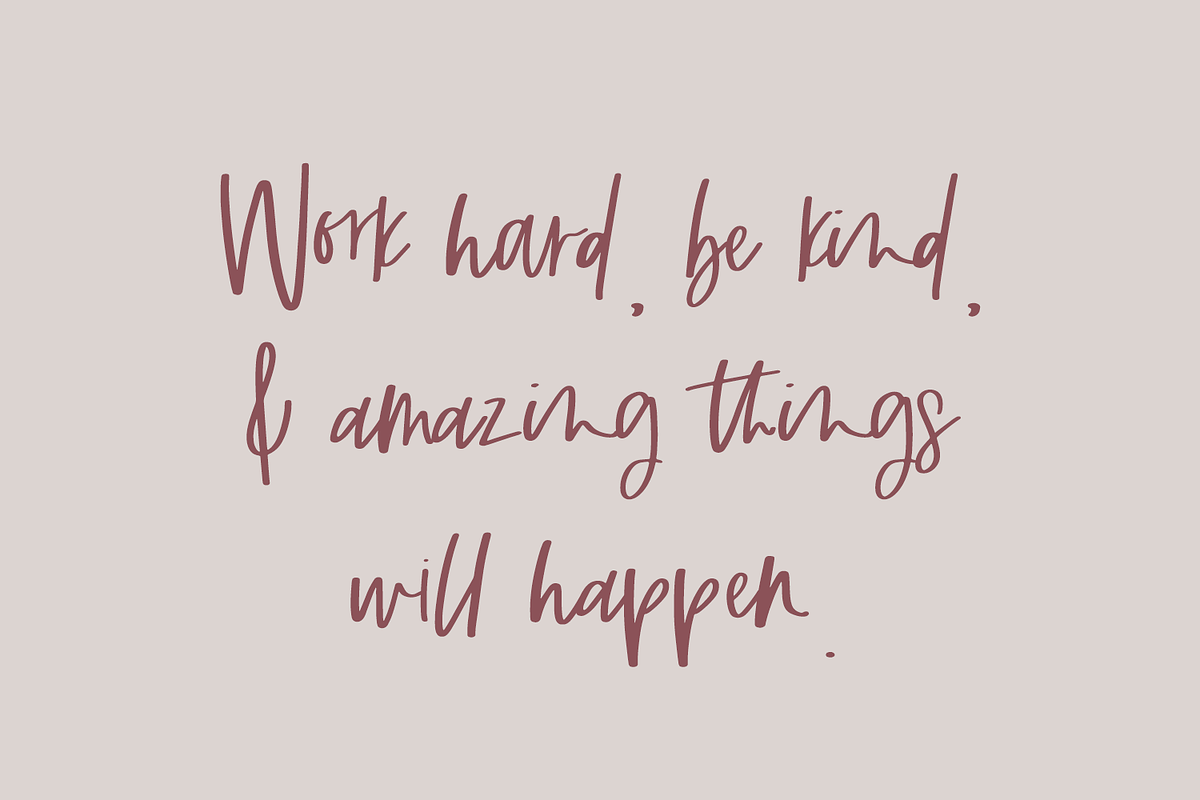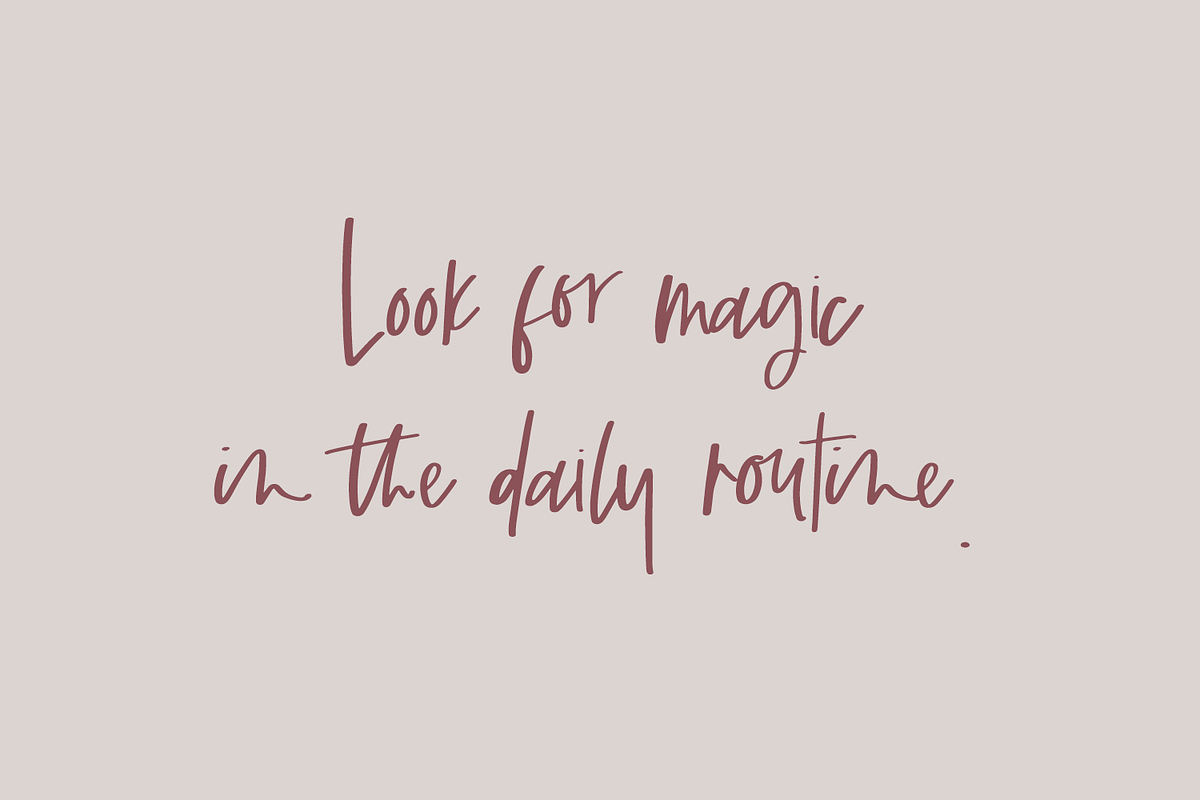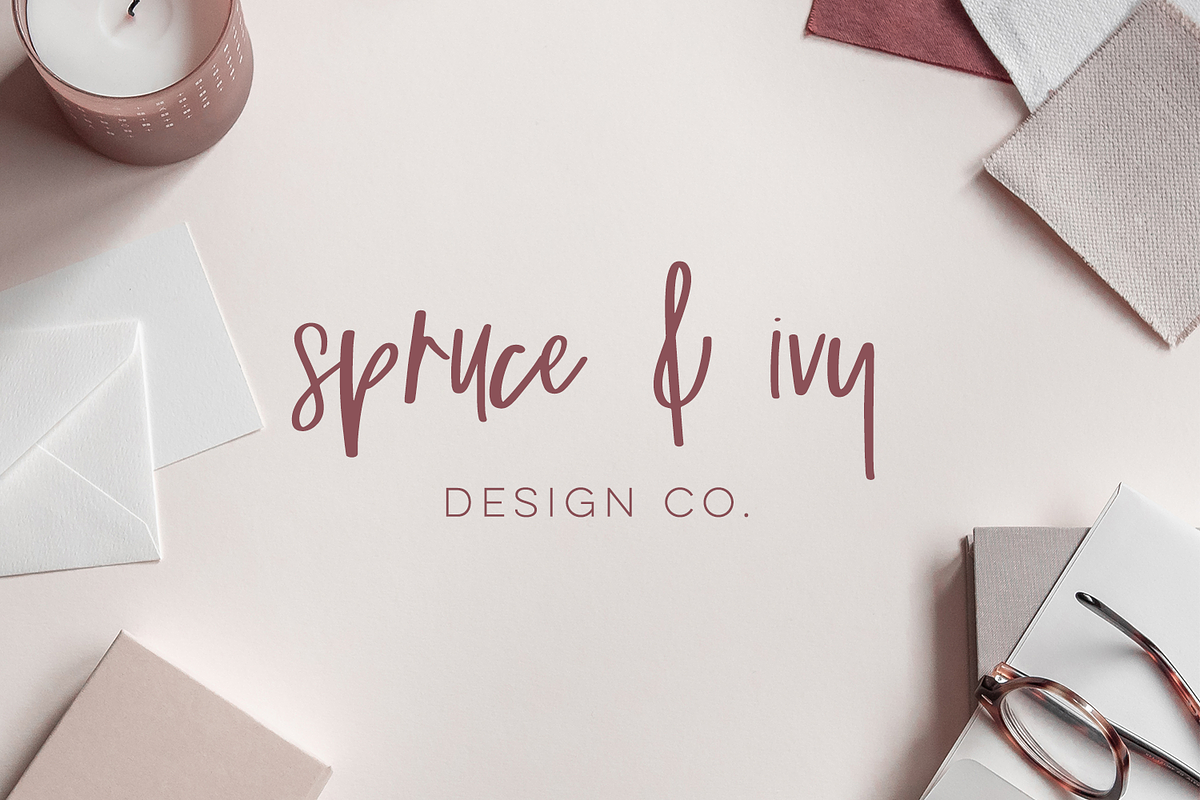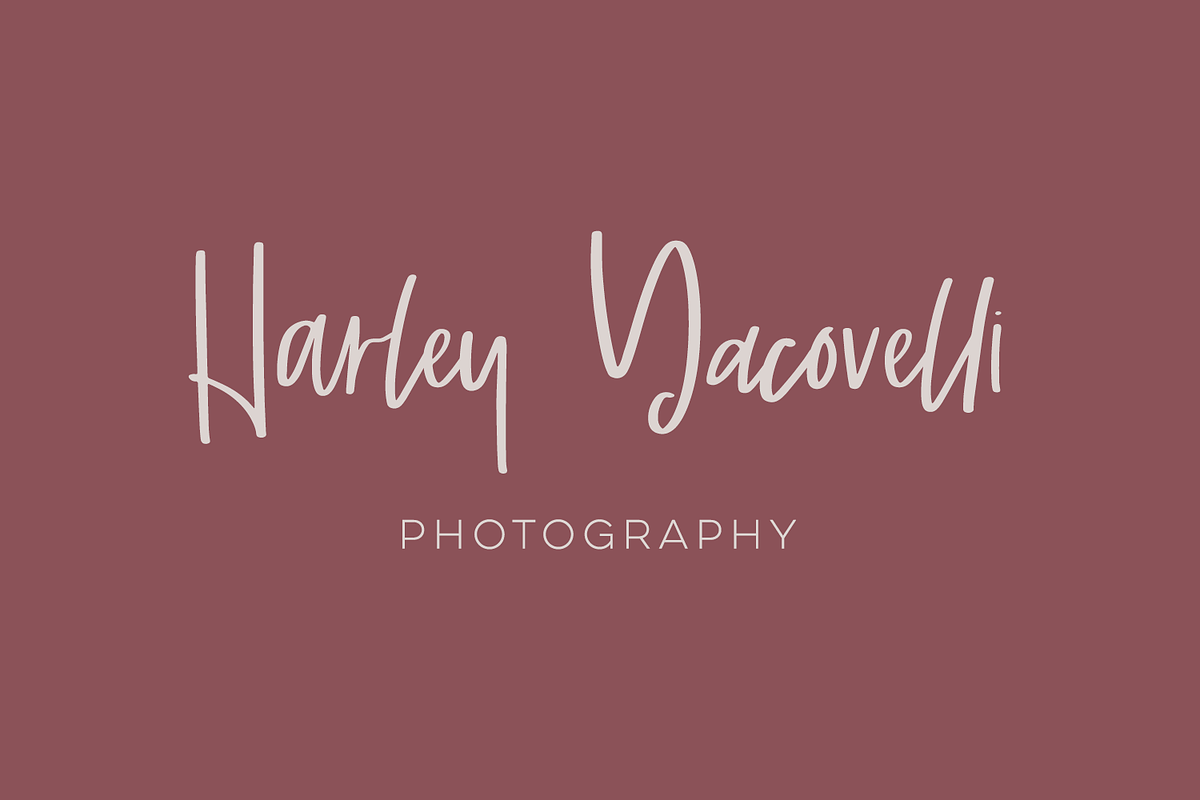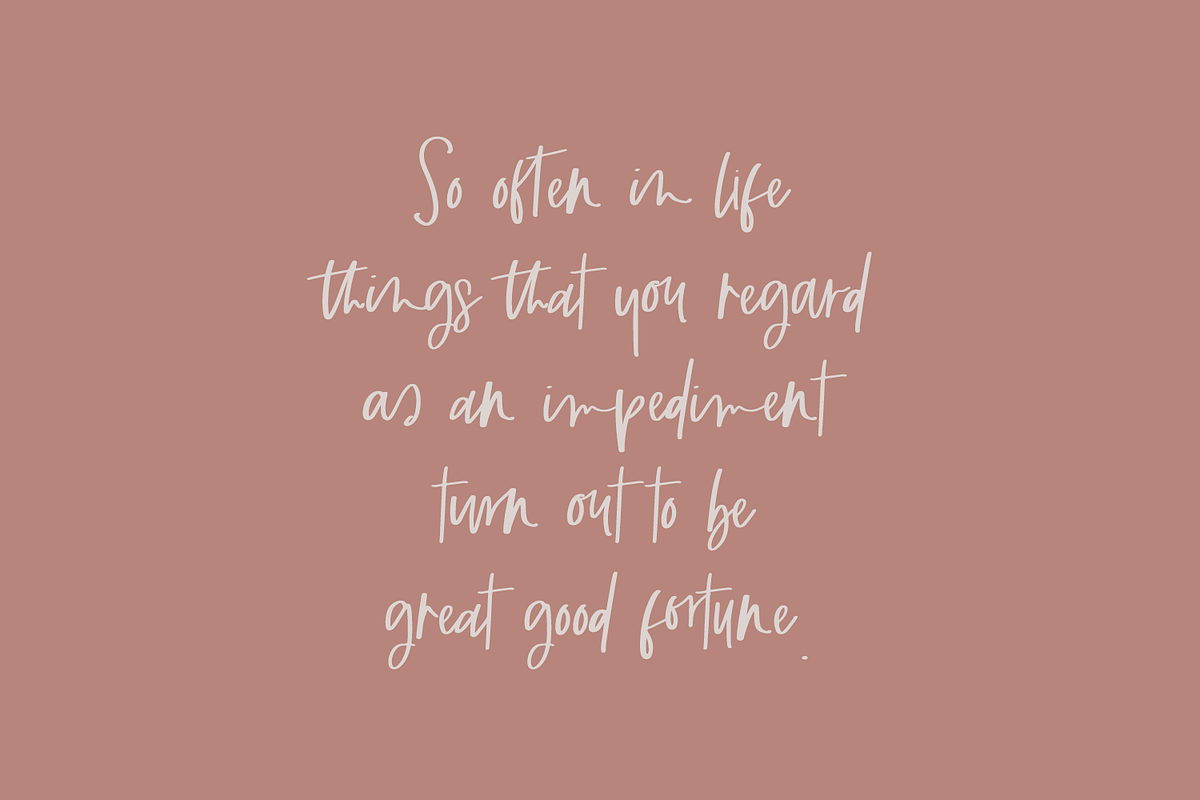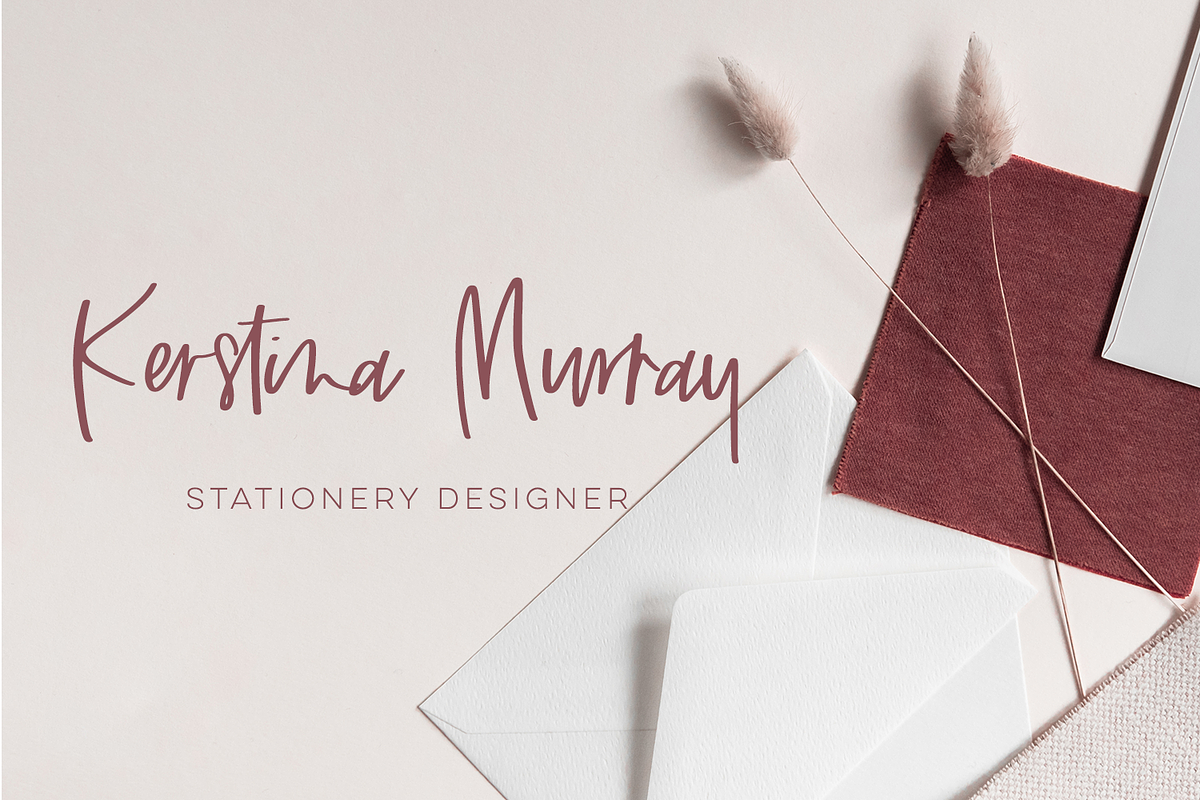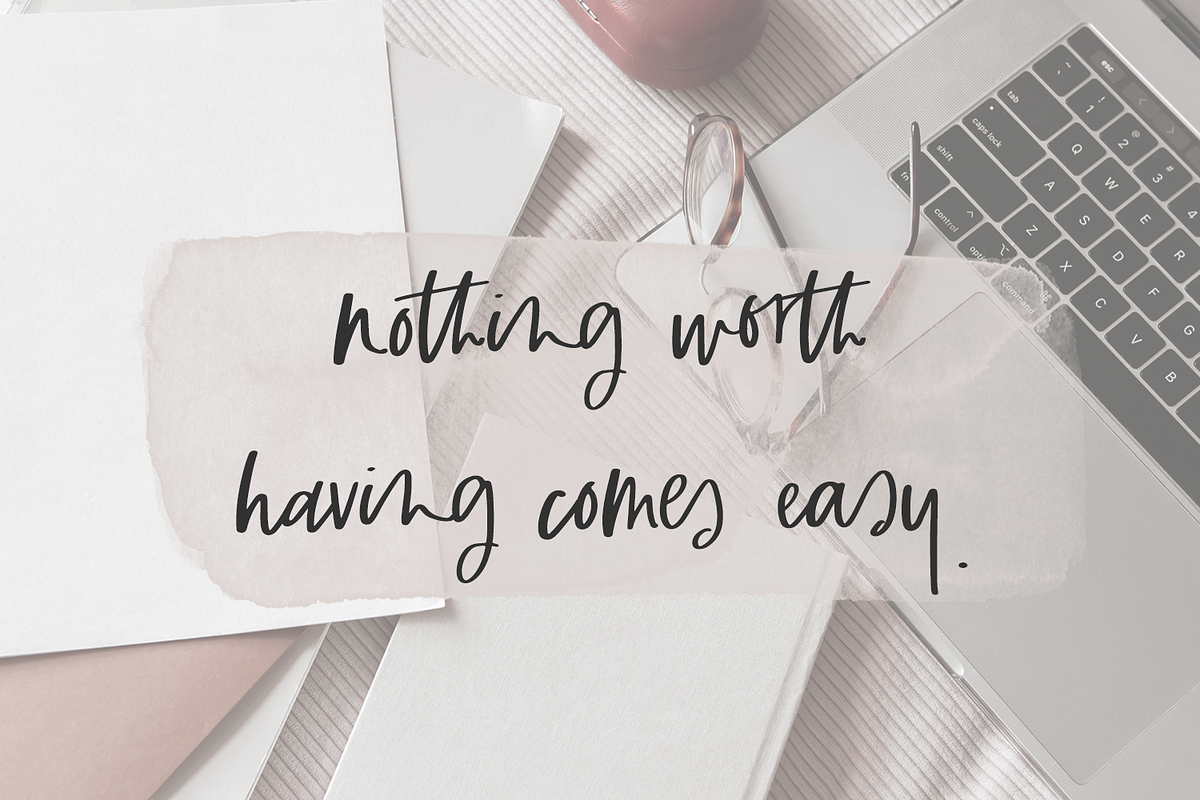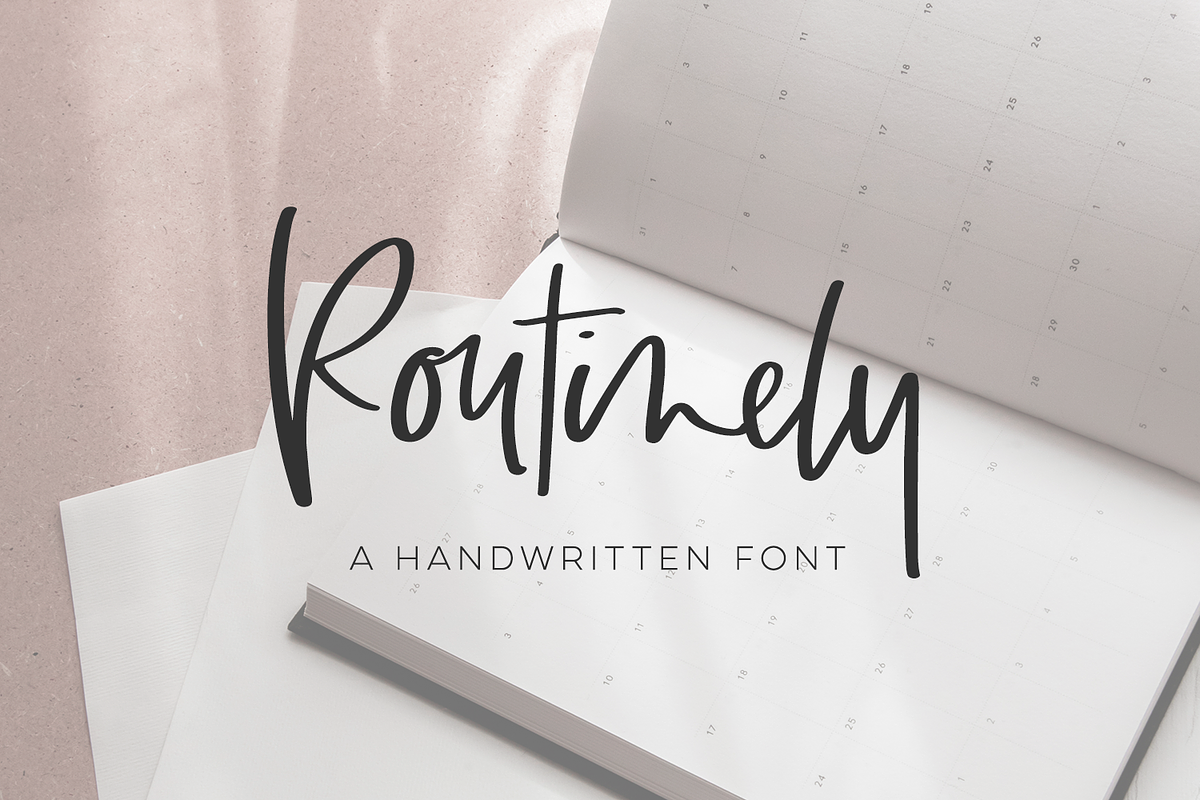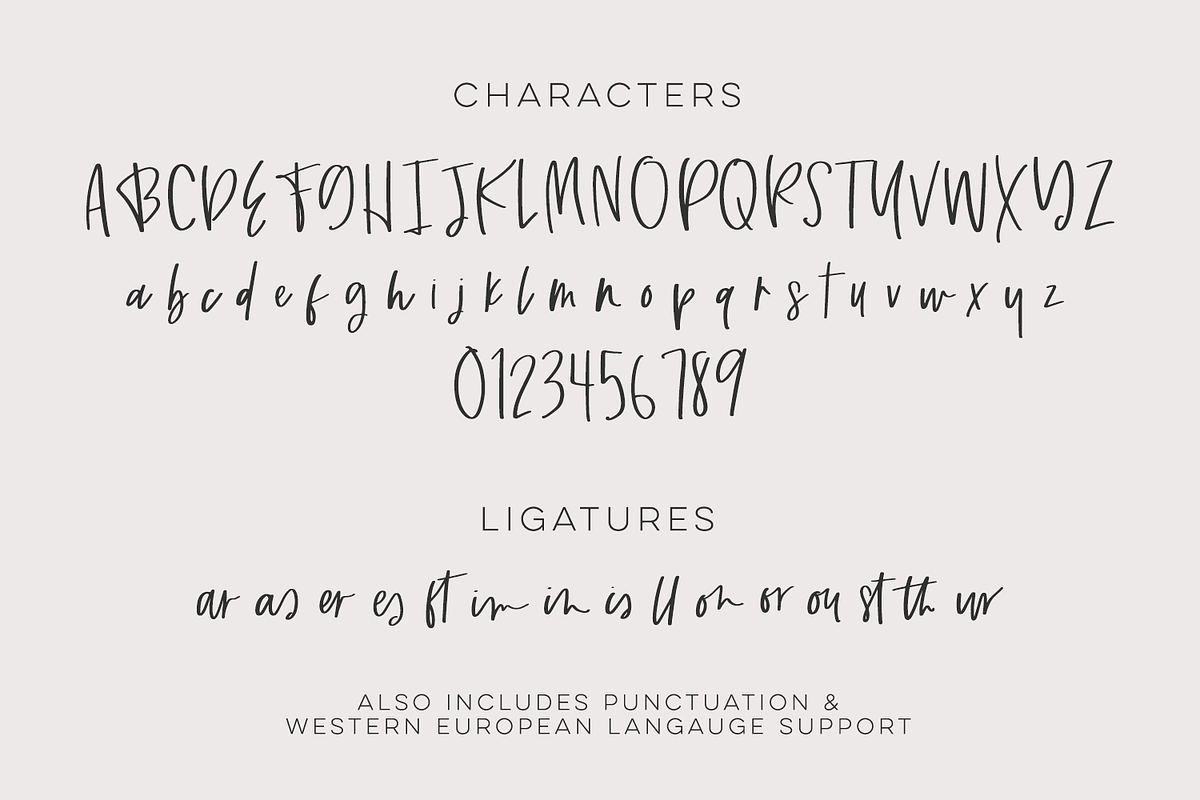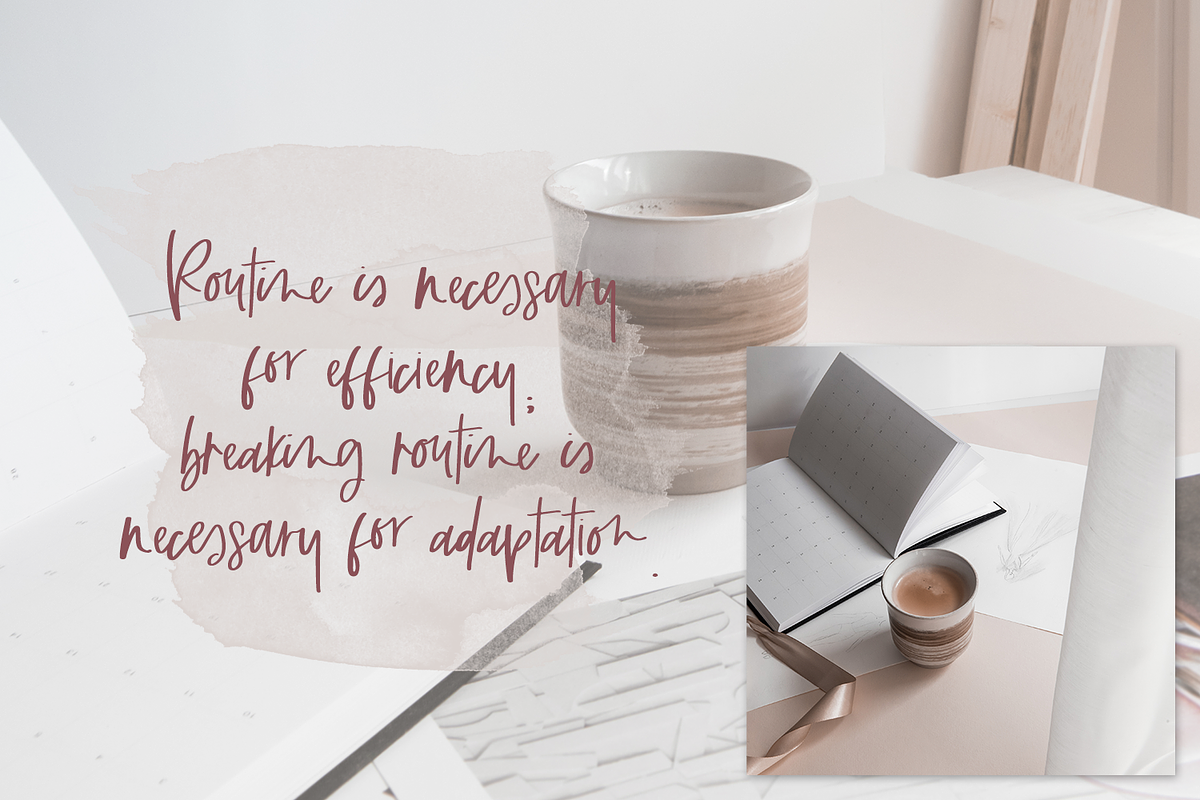
Routinely Script
Introducing Routinely Script, a handwritten signature style font. This stylish font features a messy, casual look. Routinely Script is best for:
- logos + branding
- website design + website accents - think design blogs, travel blogs, fashion blogs, & more
- clean print design, like magazines + flyers
- header elements that need handwritten touch
- quote graphics for social media
Routinely includes:
- full upper + lowercase characters
- numbers + punctuation
- Western European Language Support
- 15 ligatures - ar, as, er, es, ft, im, in, is, ll, on, or, ou, st, th, ur